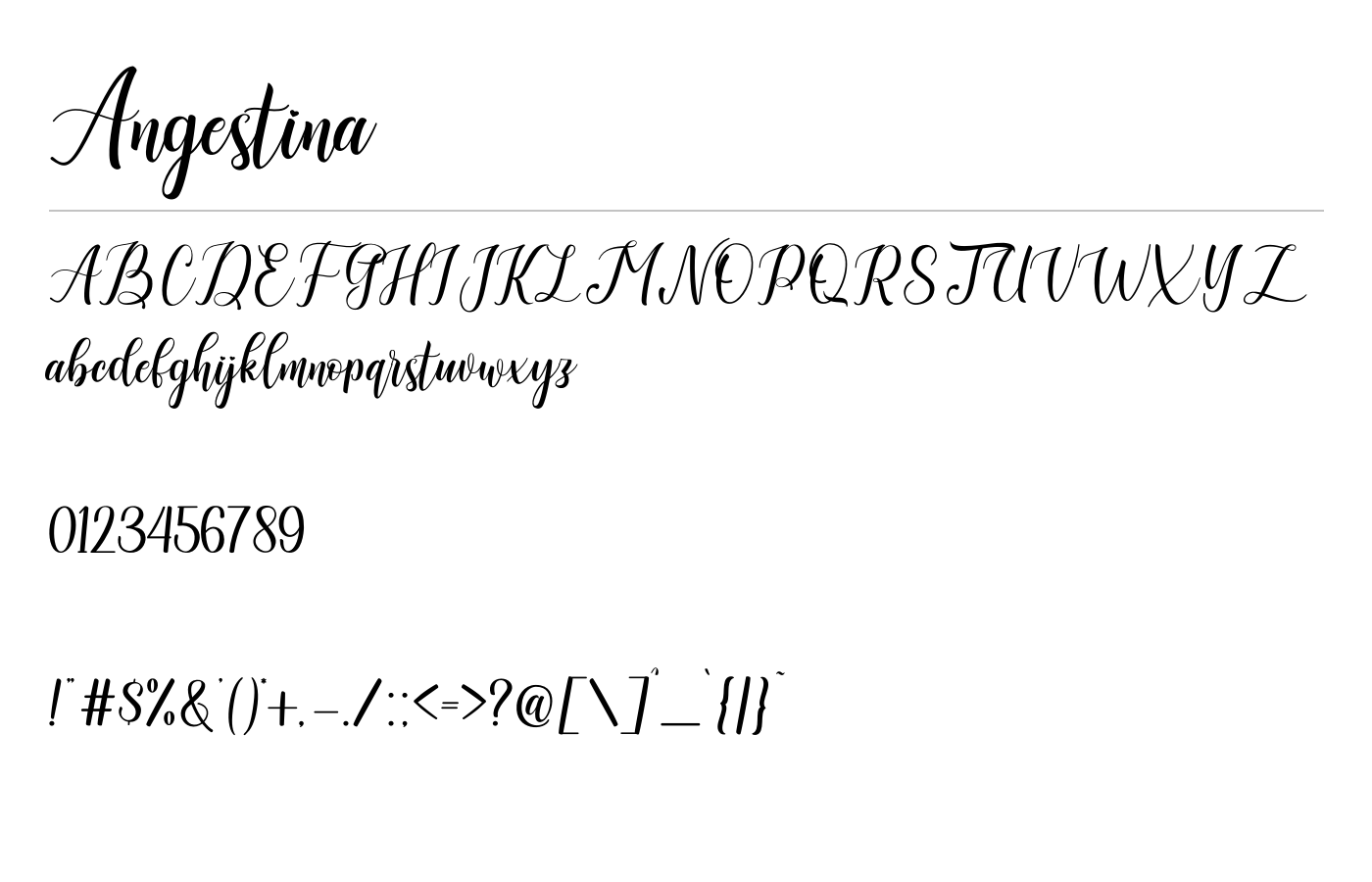
Angestina is an elegant script font characterized by its fluid, calligraphic strokes and delicate contrast between thick and thin lines, giving it a graceful and refined appearance. Its tall x-height and smooth, flowing letterforms make it ideal for sophisticated branding, invitations, and stylish headlines where a touch of luxury and warmth is desired. This font shines in contexts that call for a personal, yet polished feel, blending classic charm with modern flair.
Angestina Font
About Angestina Font